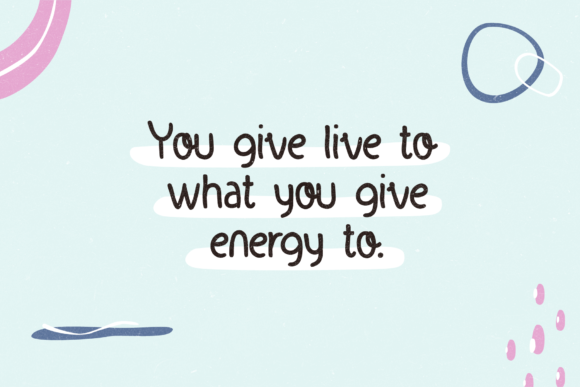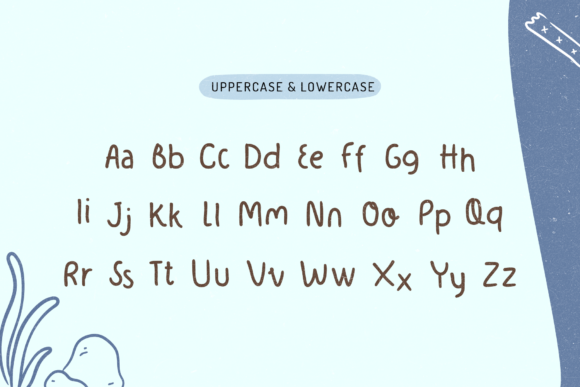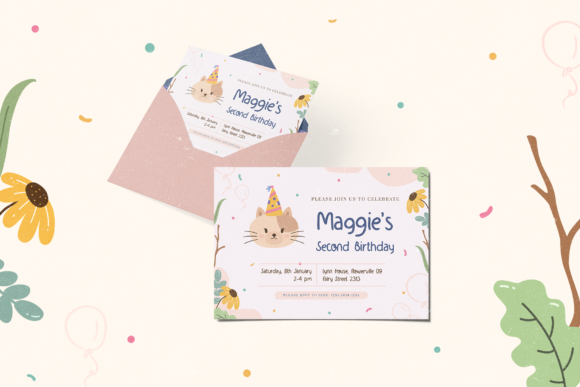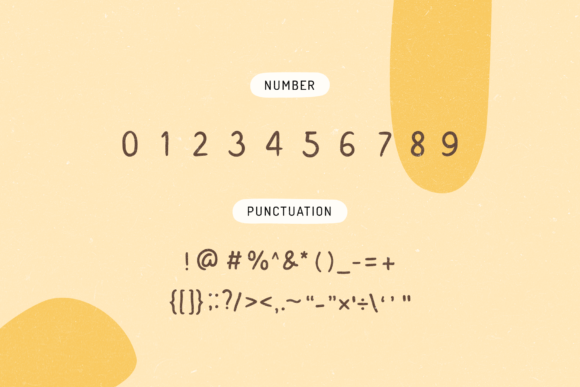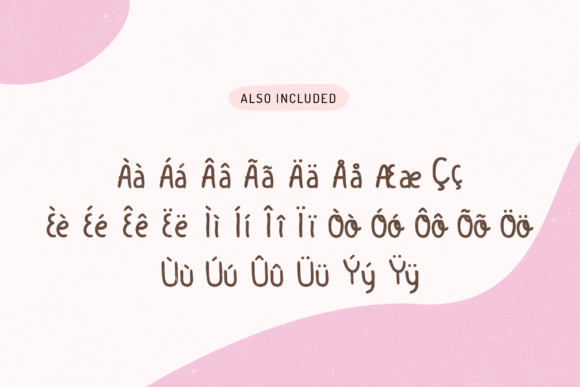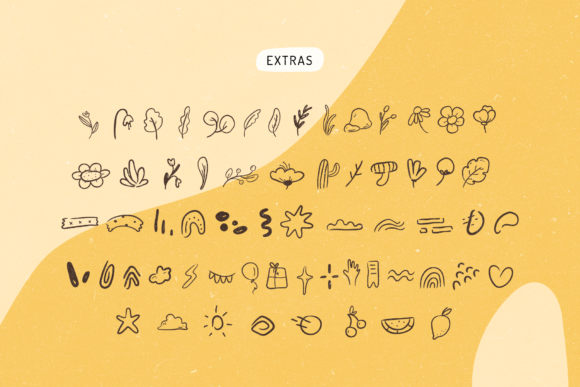
Introduction to Miggoe Font
Miggoe is a playful and casual handwritten font with an incredibly friendly feel.
It’s perfectly suited for your cute & educational designs .
Key Features of Miggoe Font
Why Choose Miggoe Font?